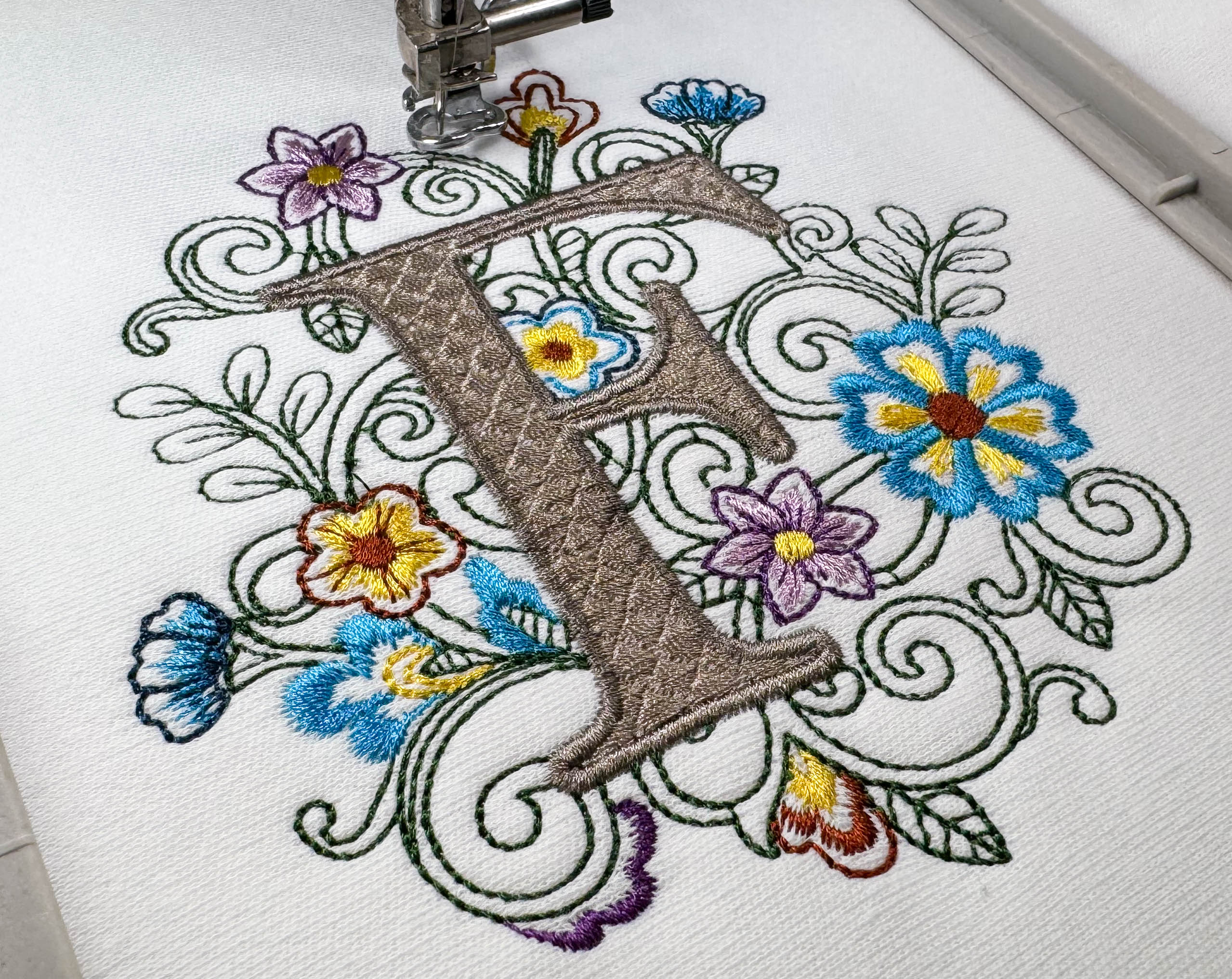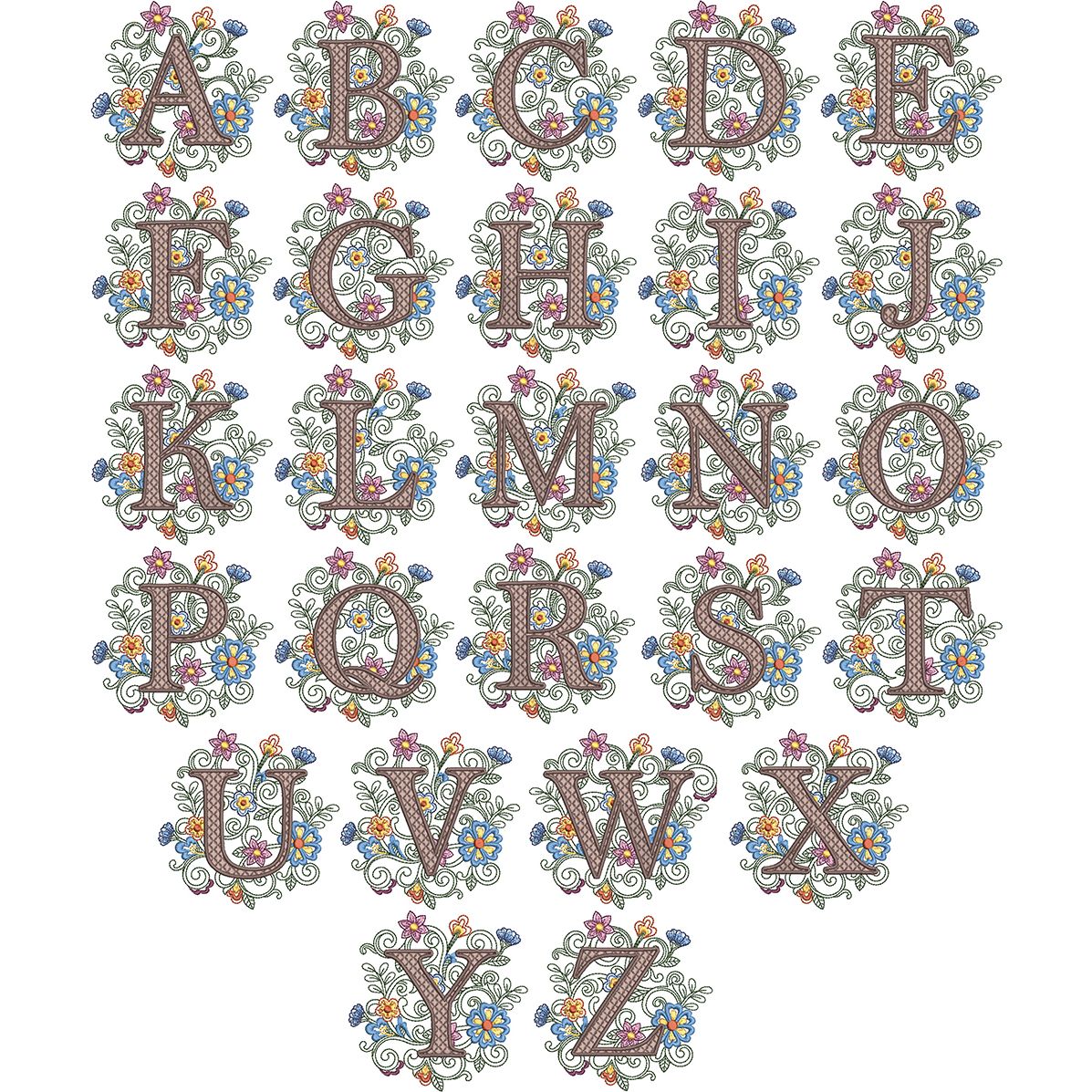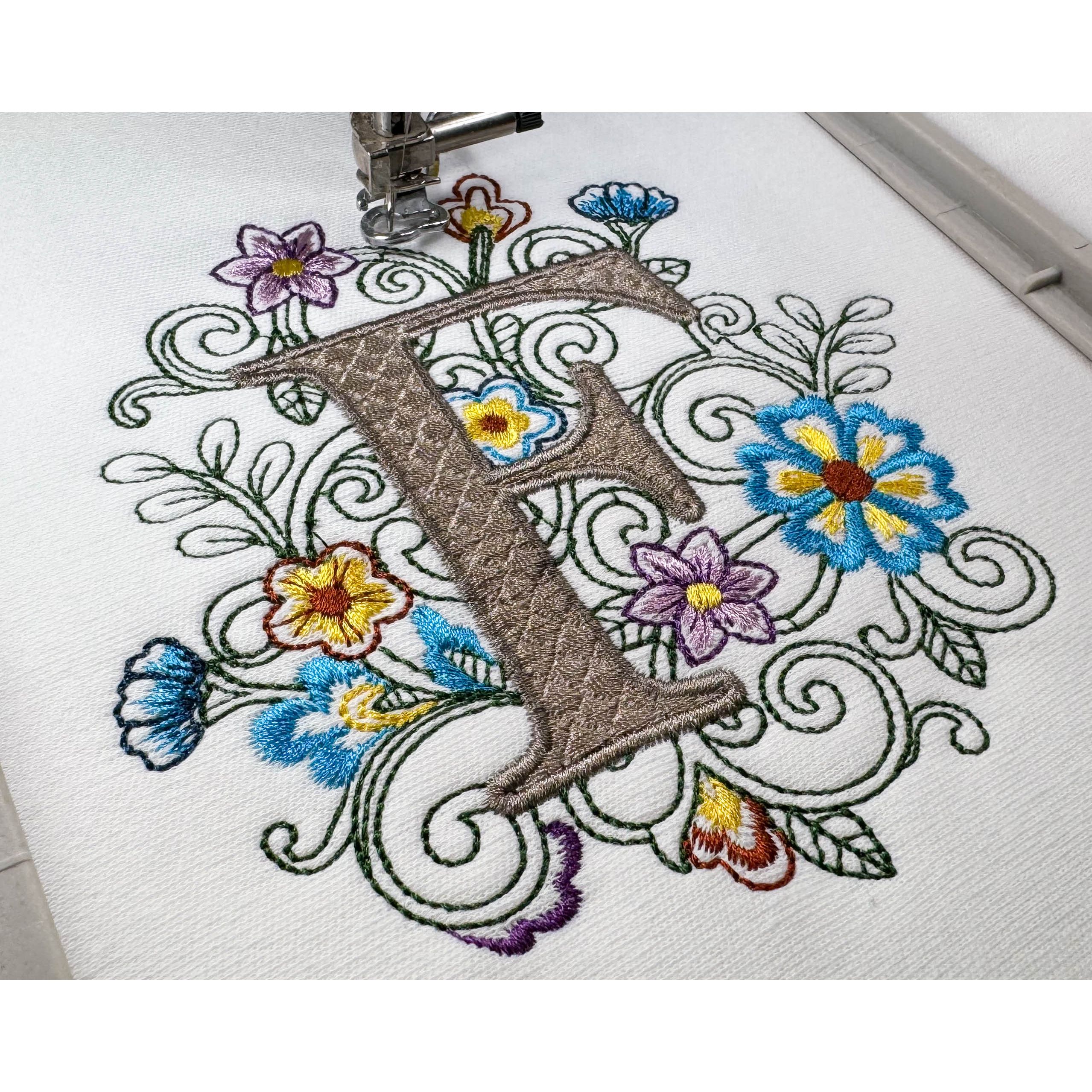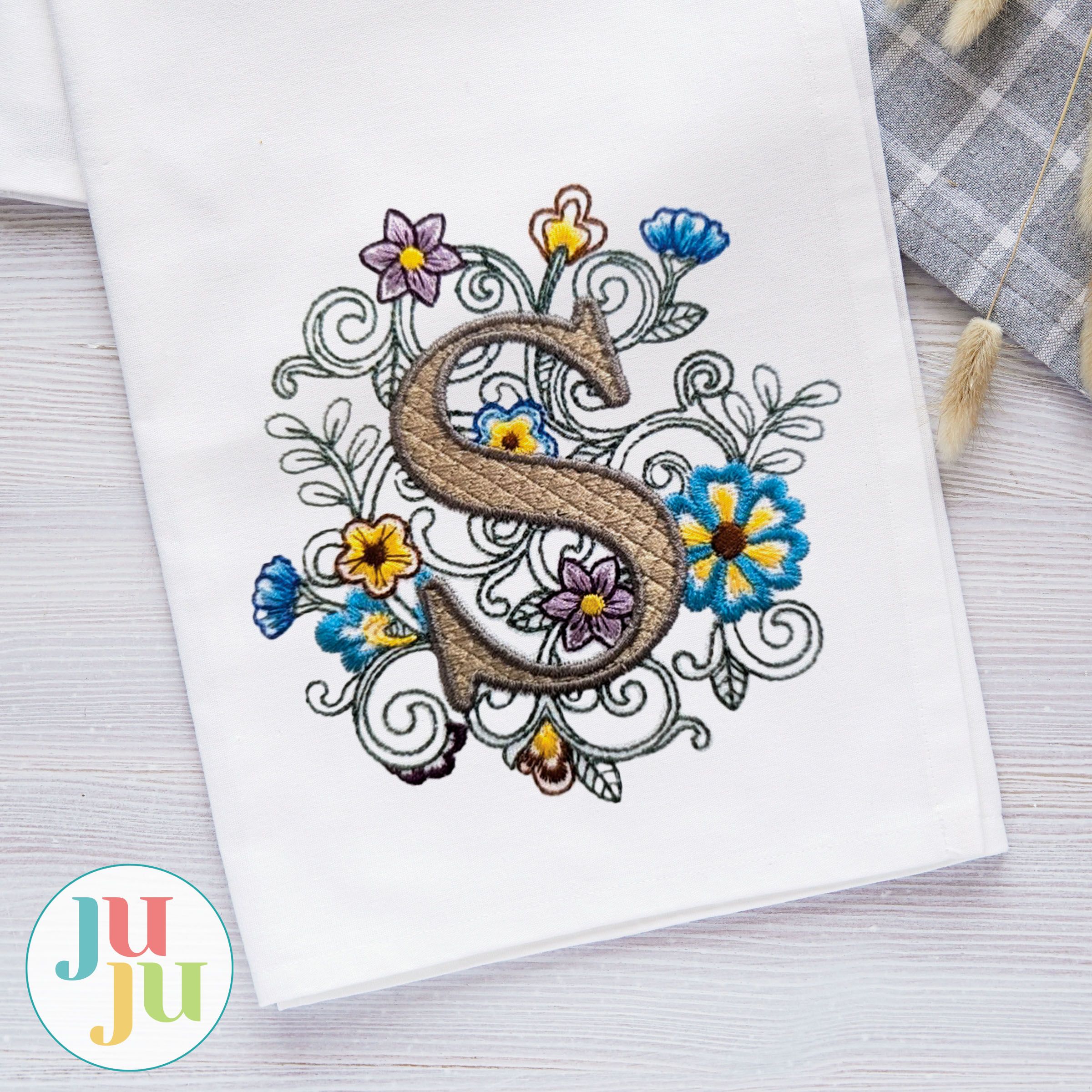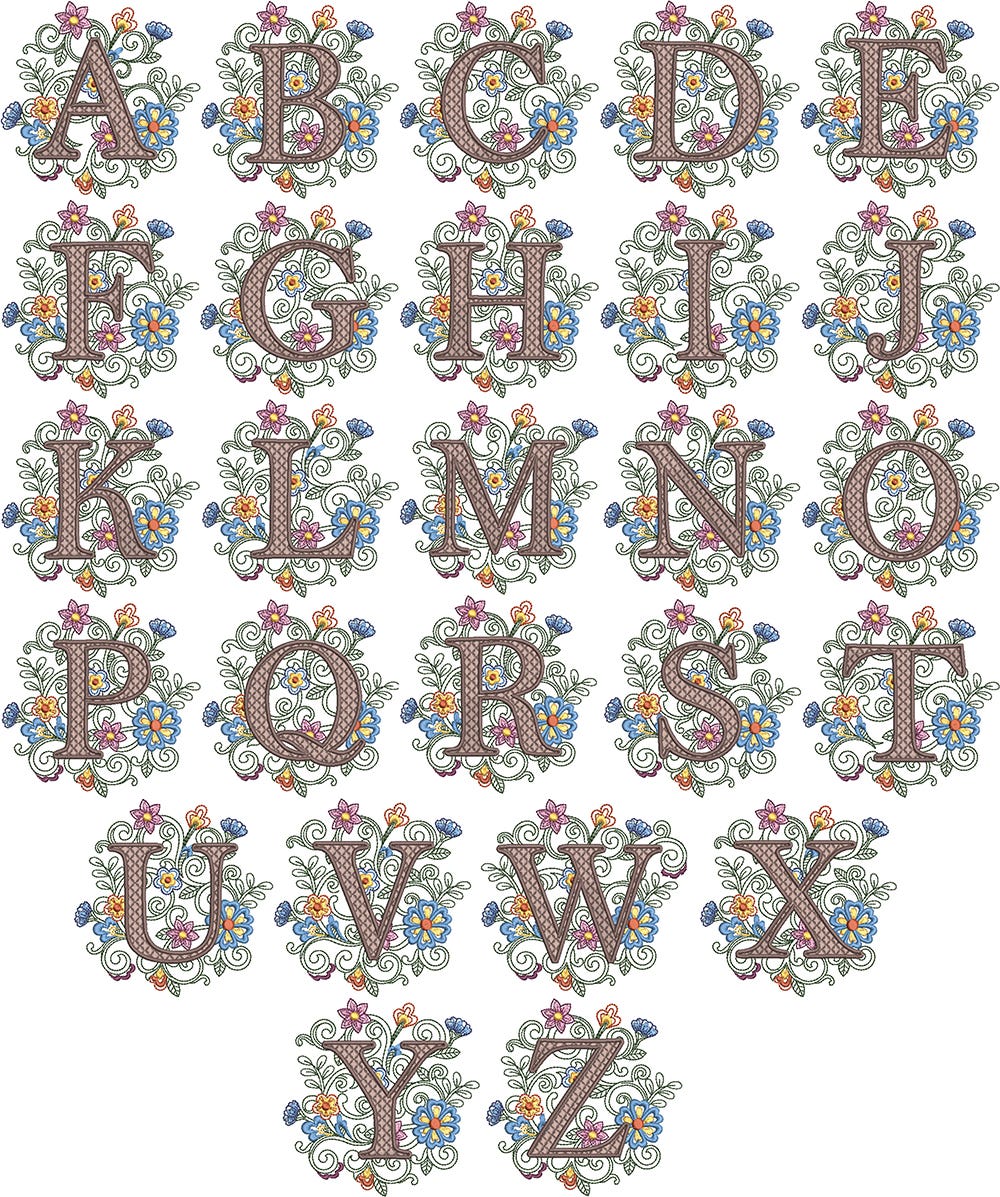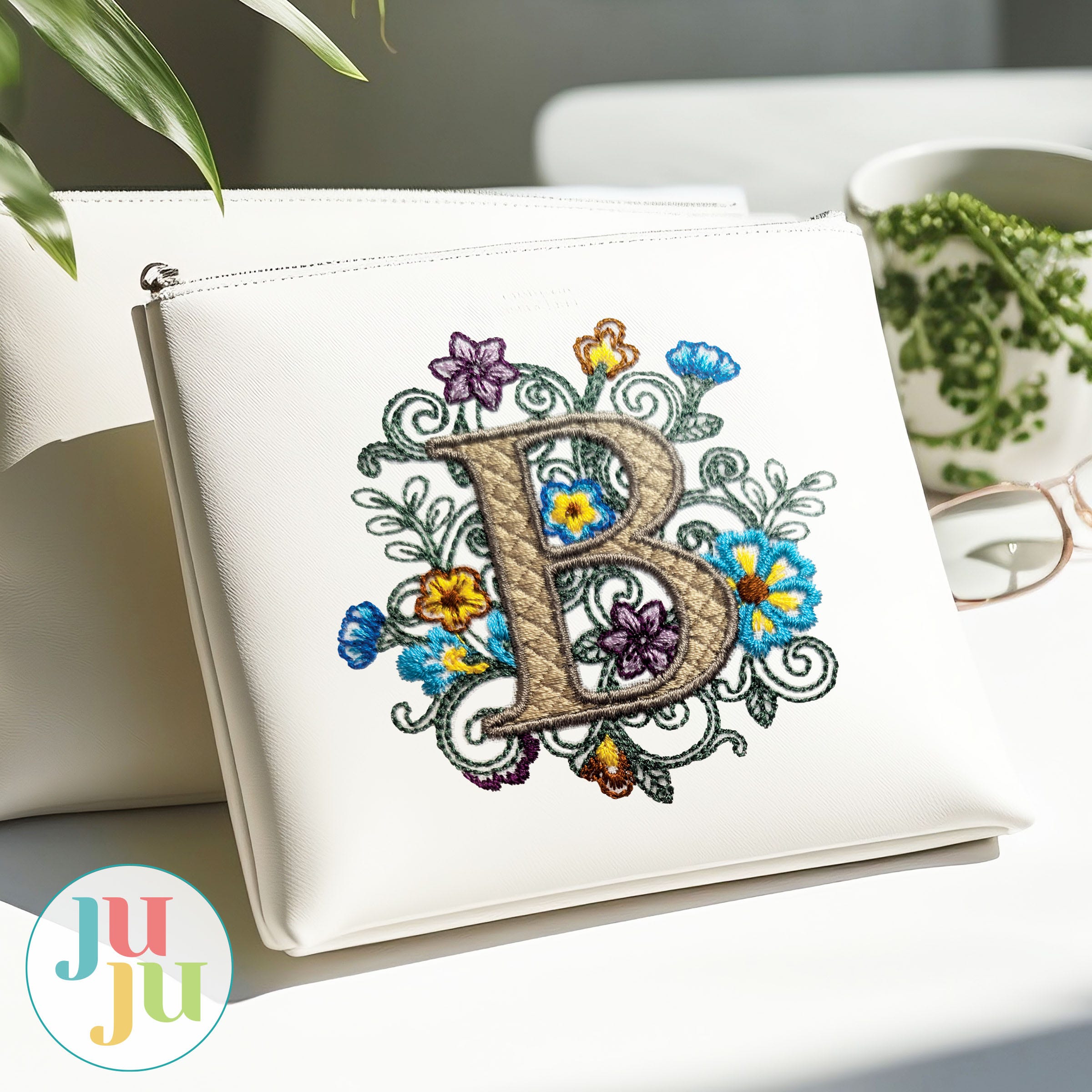
Flirty Filigree Satin Stitch Monogram Embroidery Font
Add a touch of elegance to your project with our Flirty Filigree Monogram!
The decorative fill stitch letter sits atop embroidered flowers featuring a blend of satin and sketch fill patterns with bean stitch greenery.